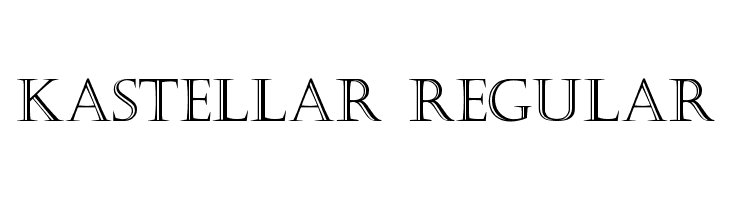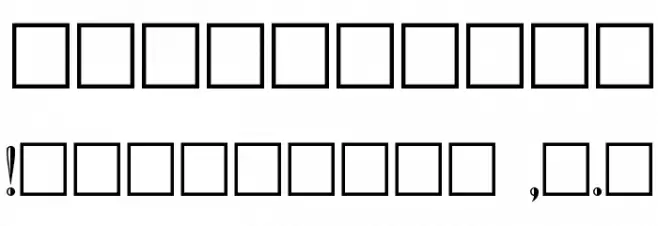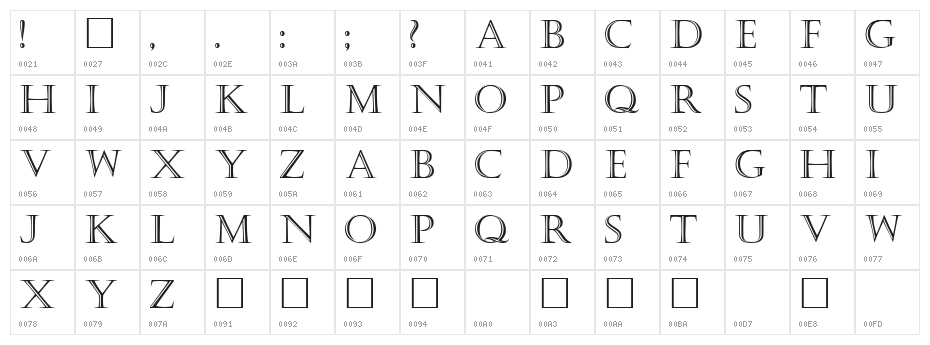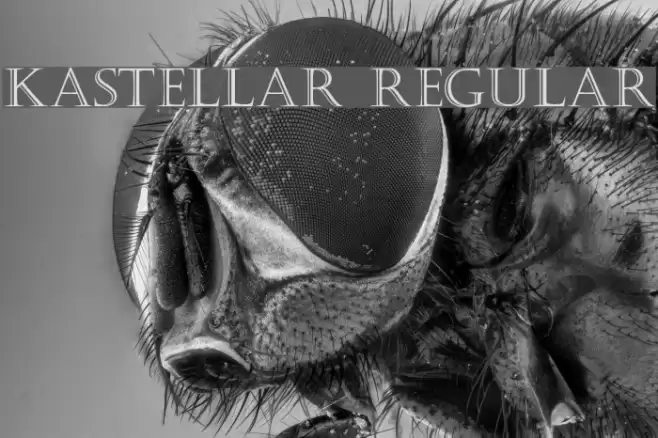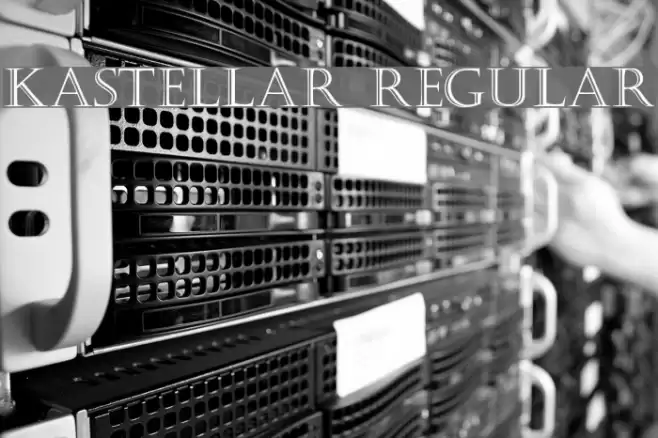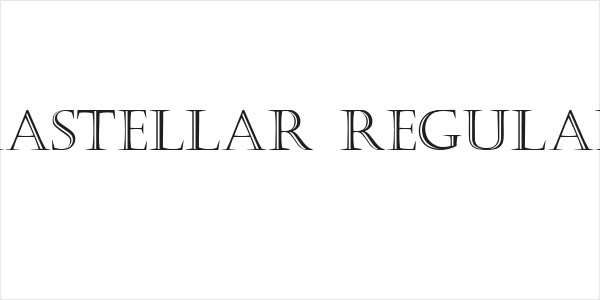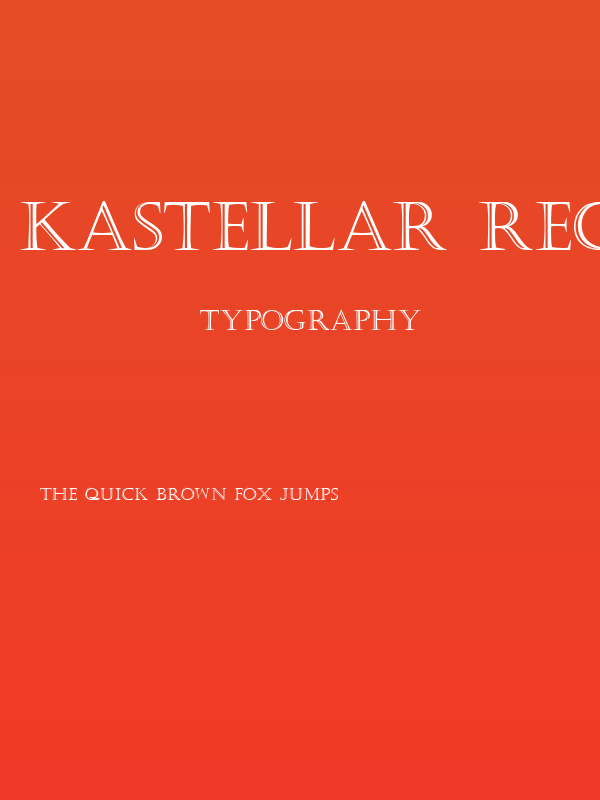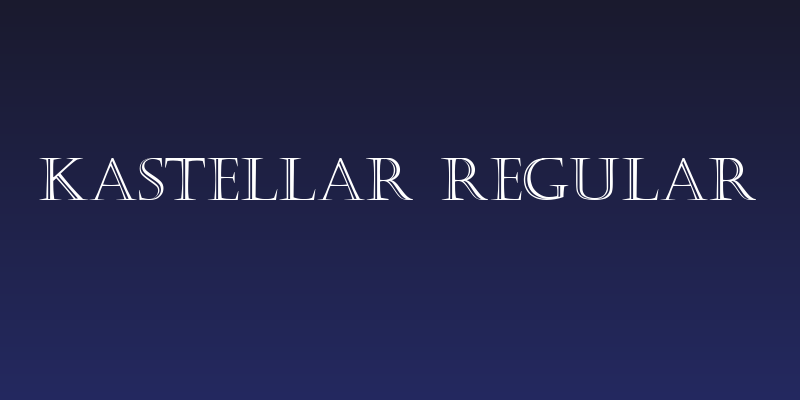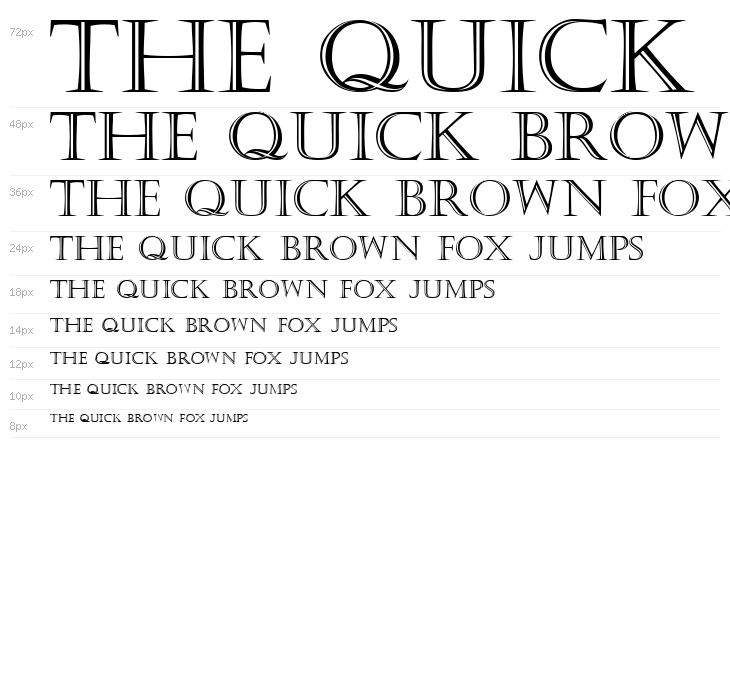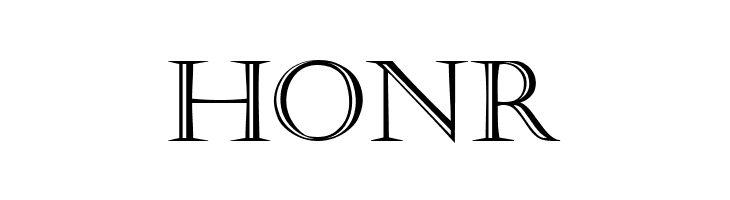
Kastellar Regular Font
Kastellar Regular Description
This font features a classic serif style with a modern twist, characterized by its elegant and refined letterforms. The uppercase letters exhibit a strong presence with sharp, clean lines and subtle curves, giving them a sophisticated appearance. The serifs are pronounced yet not overly ornate, adding a touch of tradition to the overall design. The font maintains a consistent weight throughout, ensuring readability and balance. The spacing between characters is normal, allowing for clear legibility in both headlines and body text. The contrast in stroke thickness is medium, providing a harmonious blend of boldness and delicacy. This font is well-suited for projects that require a timeless and professional look, such as editorial design, branding, and formal invitations.